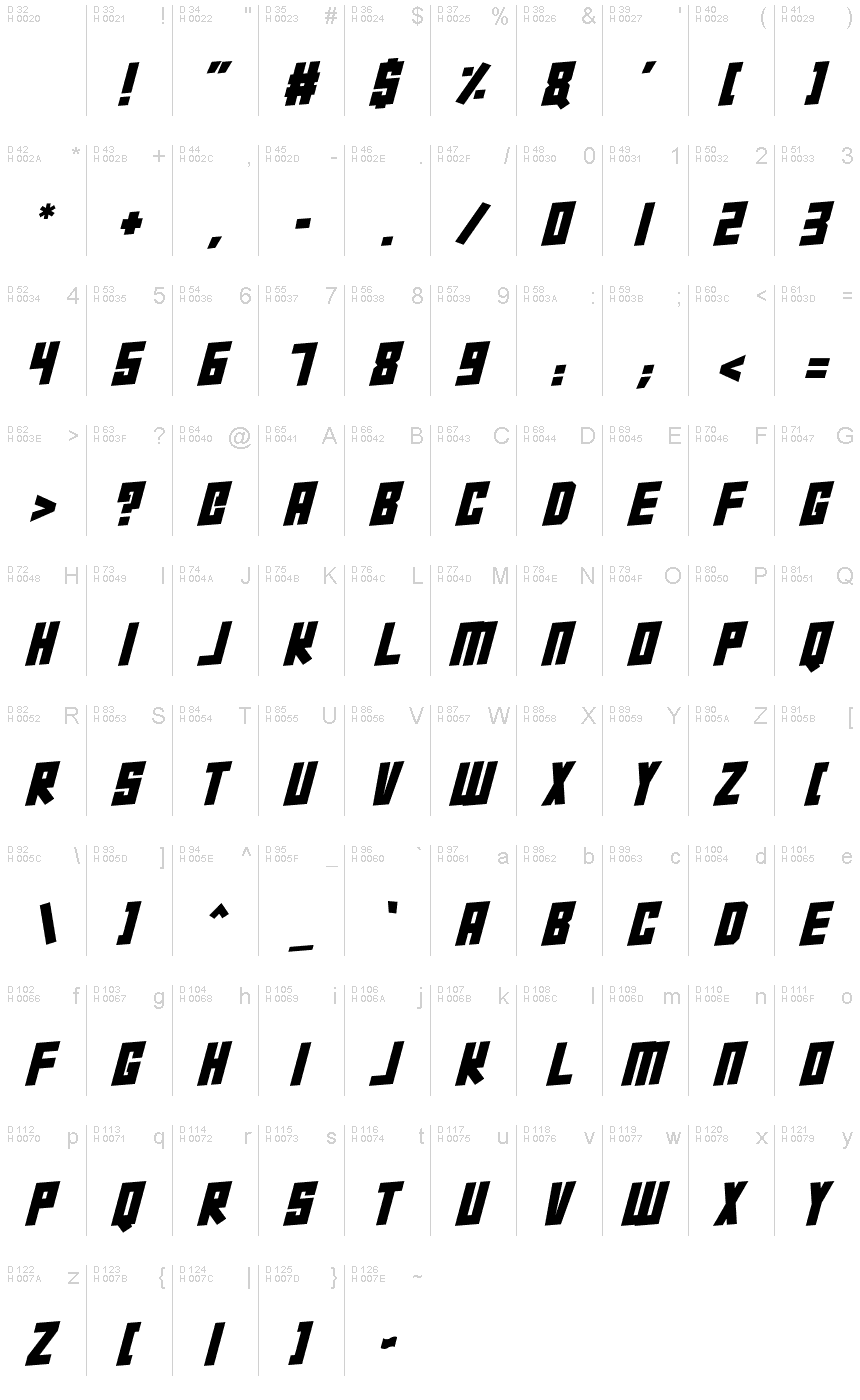
Super Squad Italic
Super Squad Italic, designed by Hawtpixel, is a bold and condensed display font that adds a playful touch to any project.
Its comic style brings life and vibrancy to posters, children's books, and video game titles. The exaggerated letterforms make it suitable for creating eye-catching headlines and logos for action-packed comics or superhero-themed designs. Super Squad Italic's condensed width allows for efficient use of space while maintaining legibility, making it perfect for packaging design, advertisements, or any project that needs a punch of personality.